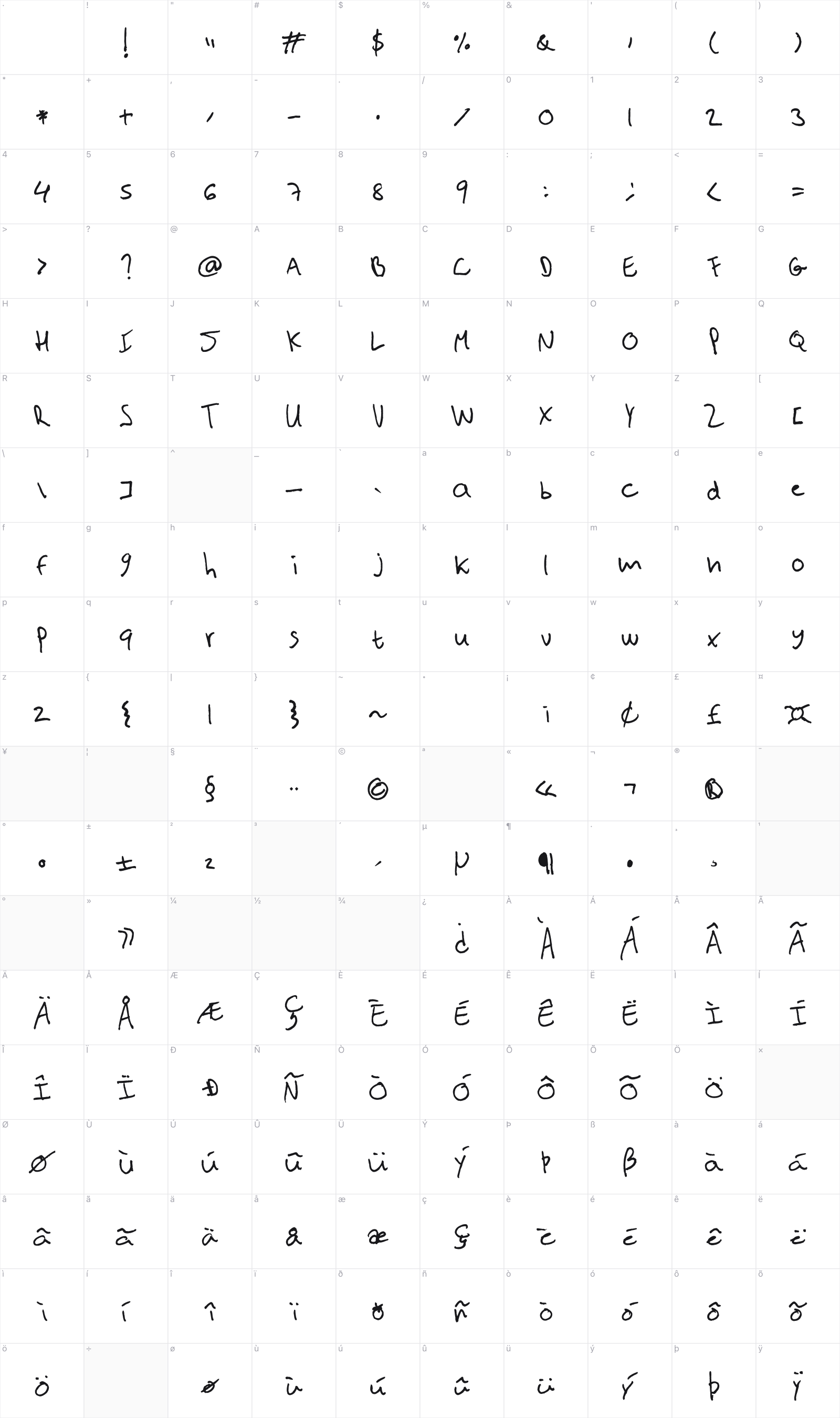
Teenishly beautiful
Teenishly Beautiful is a casual handwritten face from FontPanda with uneven baselines and a loose marker quality that feels genuinely youthful and off-the-cuff. The letterforms have that natural imperfection of someone writing quickly without caring too much about staying on the line, giving it a playful, spontaneous energy. Works well for social media graphics, greeting cards, and informal branding where a real human touch matters more than refinement.